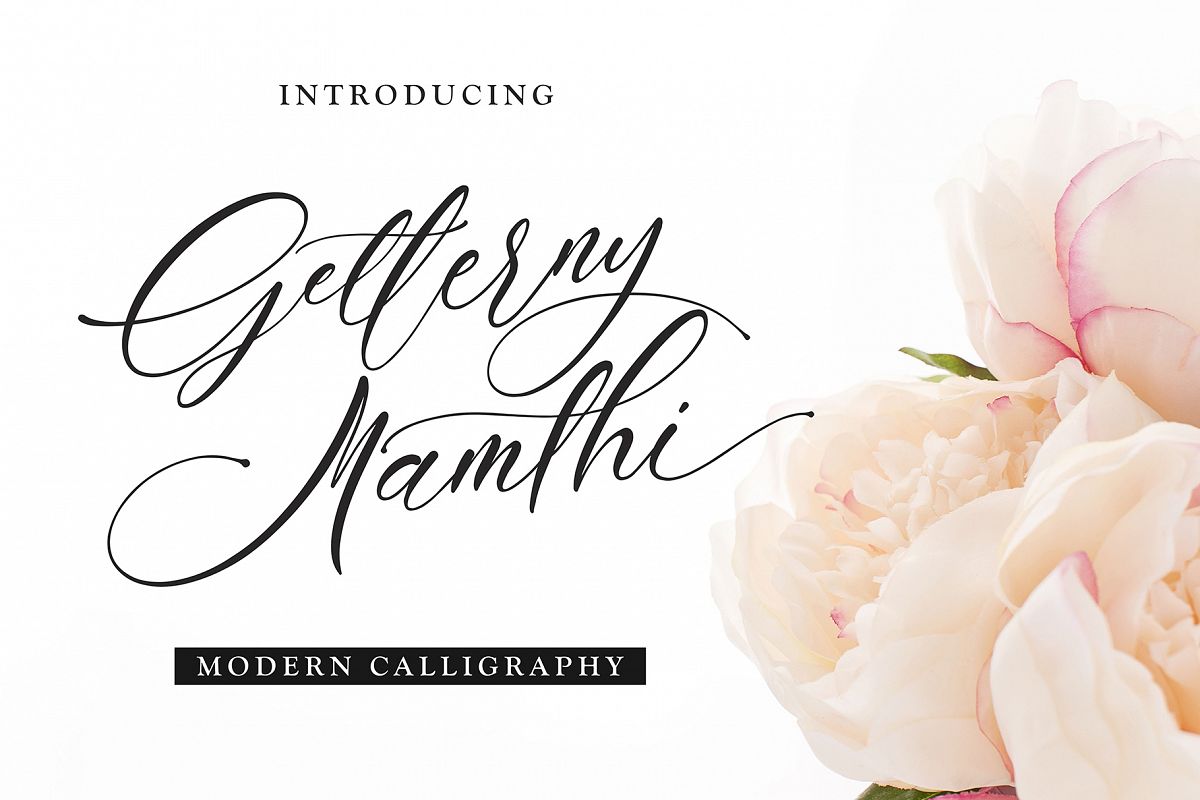
Getterny Mamthi
Getterny Mamthi modern calligraphy font style, this font will perfect for many different project ex: quotes, logo, blog header, poster, banding, fashion, apparel, letter, invitation, stationery, etc...